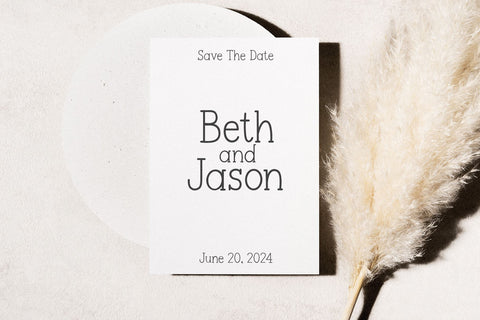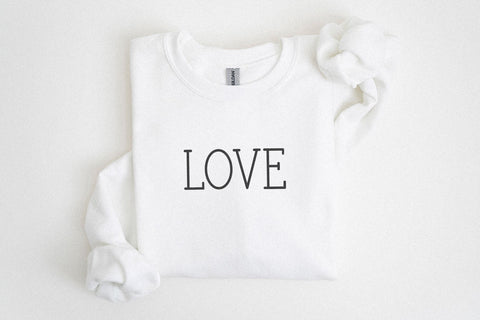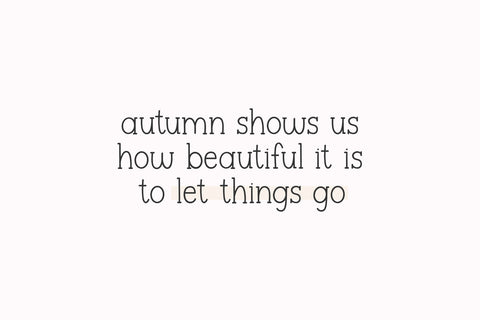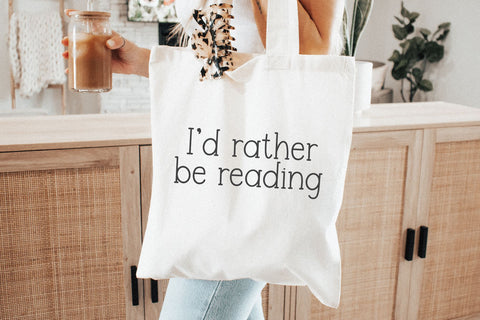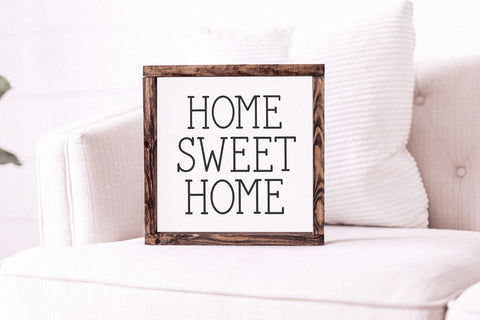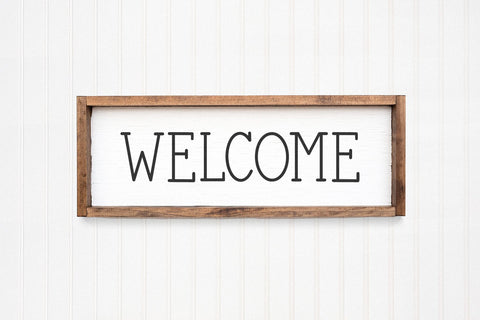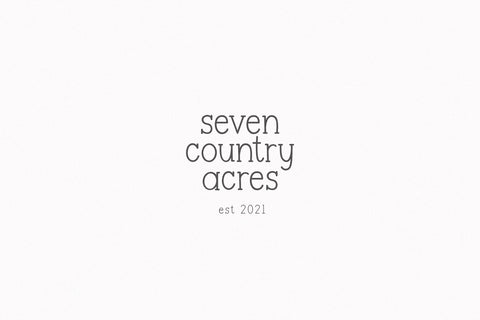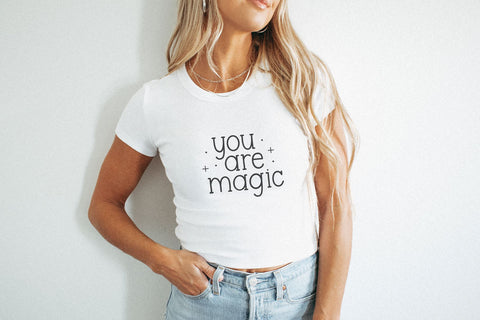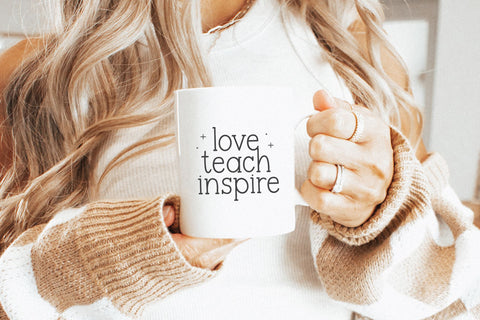
Pumpkin Spiced - Cute Typewriter Font
Pumpkin Spiced is a cute typewriter style font.
This font is perfect for logos, farmhouse designs, wedding decor, cricut projects, svg files, goodnotes, planners, stickers, quotes, social media and more!